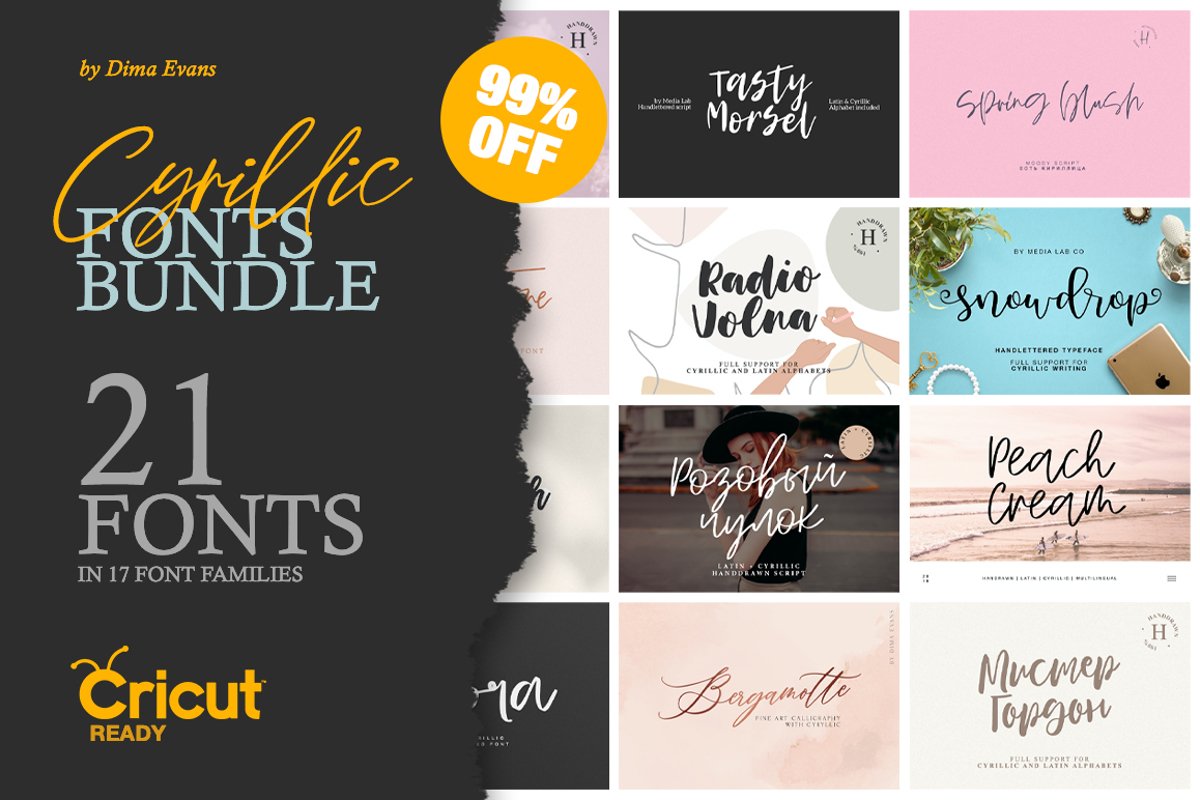
21 in 1 Cyrillic Script Fonts Bundle
All fonts in this bundle support Cyrillic
This package is very suitable for greeting cards, signature logos, holiday invitations, wedding invites, stationery, logos, inspirational quotes, posters, blog headers, packaging, custom prints and more!
- Most, but not all fonts contain multilingual support.
Бандл Кириллицы
Все шрифты в этом пакете поддерживают кириллицу
Этот бандл идеально подходит для поздравительных открыток, фирменных логотипов, праздничных приглашений, свадебных приглашений, канцелярских принадлежностей, логотипов, вдохновляющих цитат, плакатов, заголовков блогов, упаковки, пользовательских принтов и многого другого!
- Bergamotte - https://fontbundles.net/medialab/292348-bergamotte-fine-art-calligraphy
- HeavenMoon - https://fontbundles.net/medialab/404841-heavenmoon-latin-and-cyrillic
- Pechenka - https://fontbundles.net/medialab/6806-pechenka-latin-cyr
- Radio Volna - https://fontbundles.net/medialab/272889-radio-volna
- Rozovii Chulok - https://fontbundles.net/medialab/147727-rozovii-chulok
- Snowdrop - https://fontbundles.net/medialab/19891-snowdrop
- Spring blush - https://fontbundles.net/medialab/239065-spring-blush
- Sunstone - https://fontbundles.net/medialab/530114-sunstone-cyrillic-and-latin
- Tasty morsel - https://fontbundles.net/medialab/49751-tasty-morsel-script
- Tokyo Aurora - https://fontbundles.net/medialab/49746-tokyo-aurora